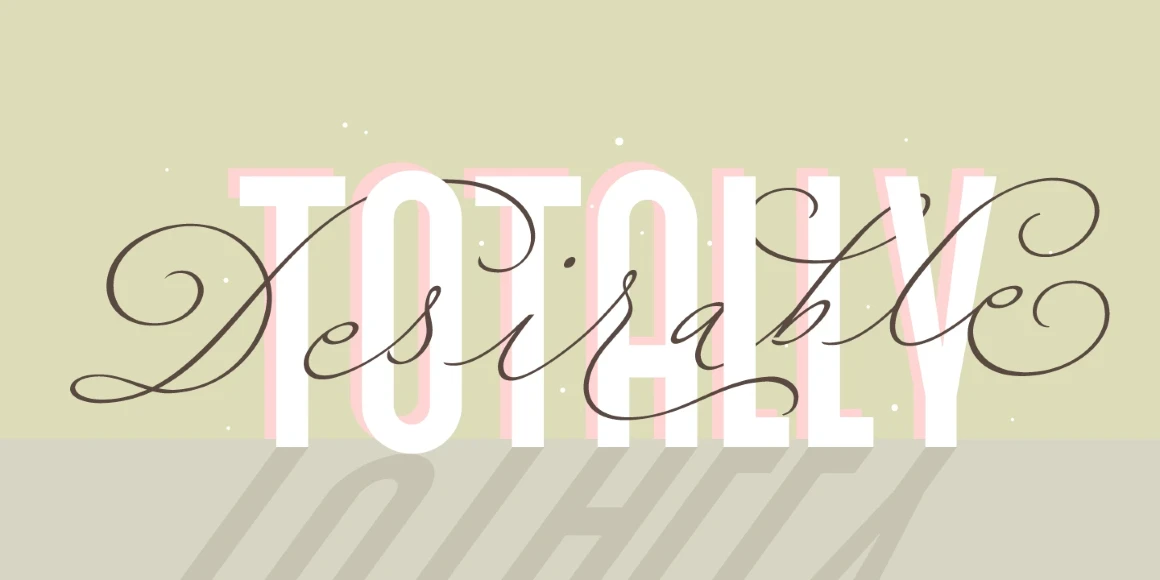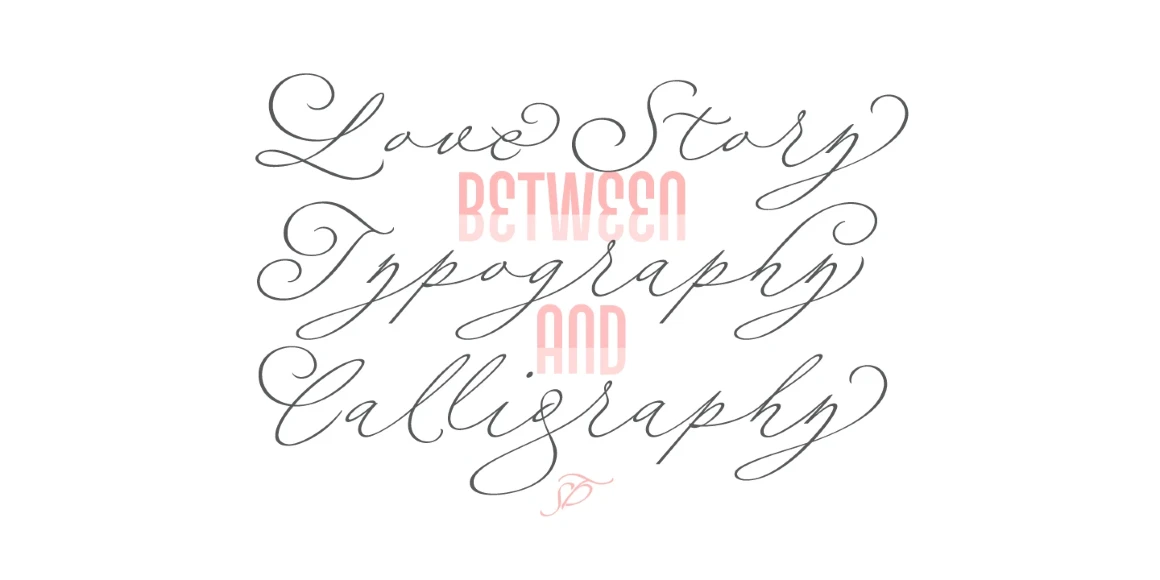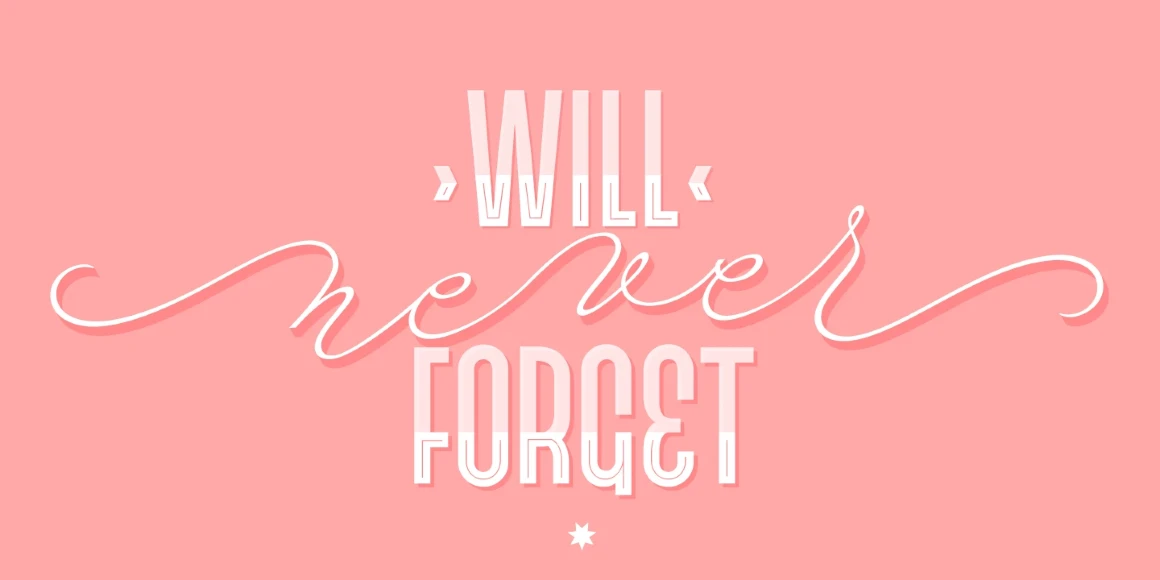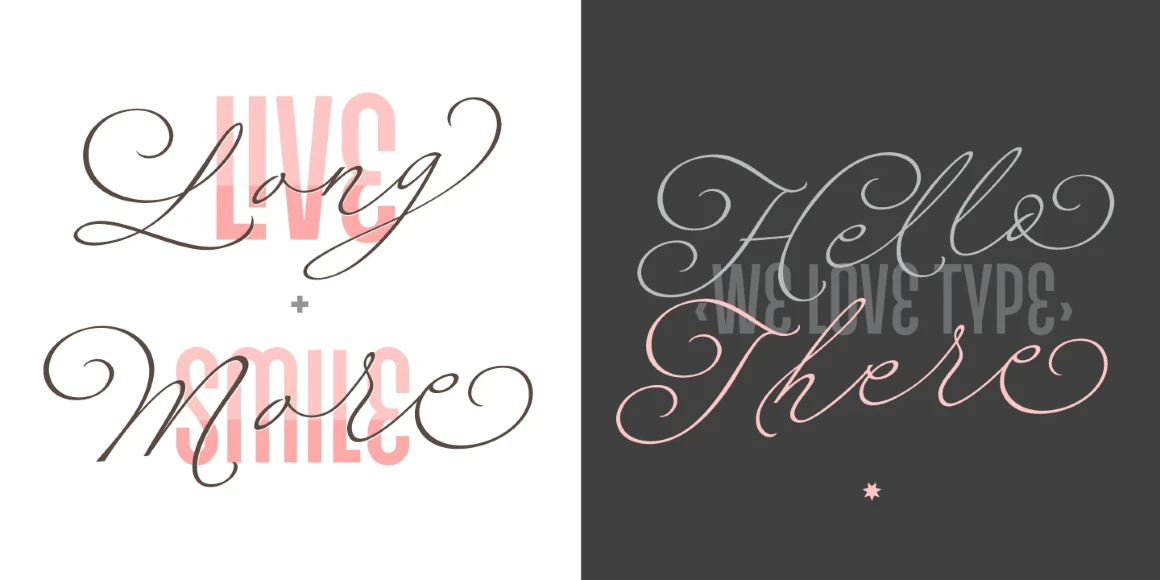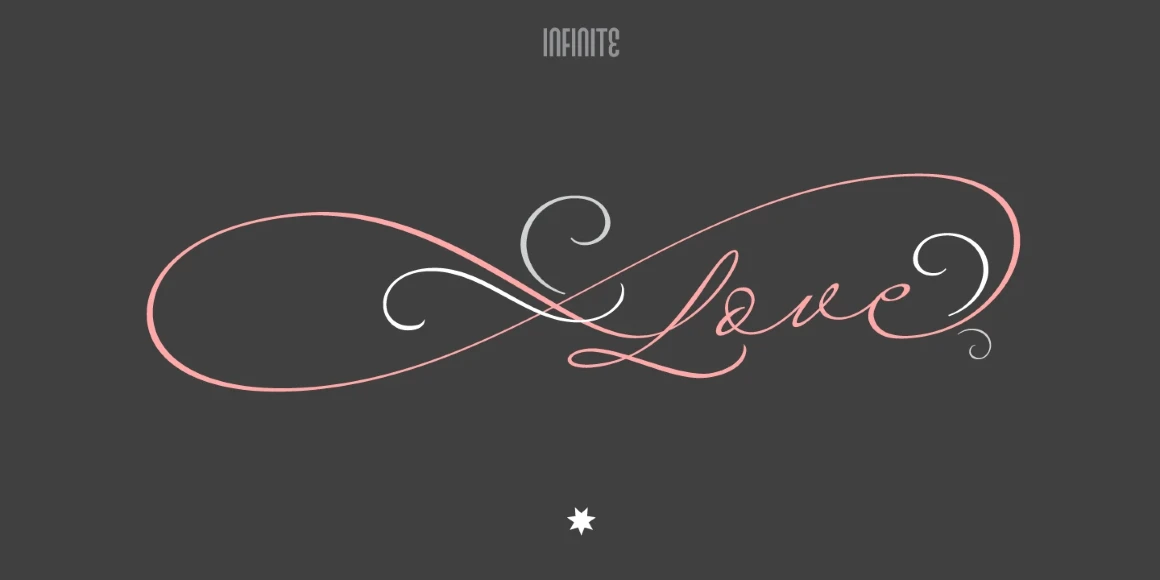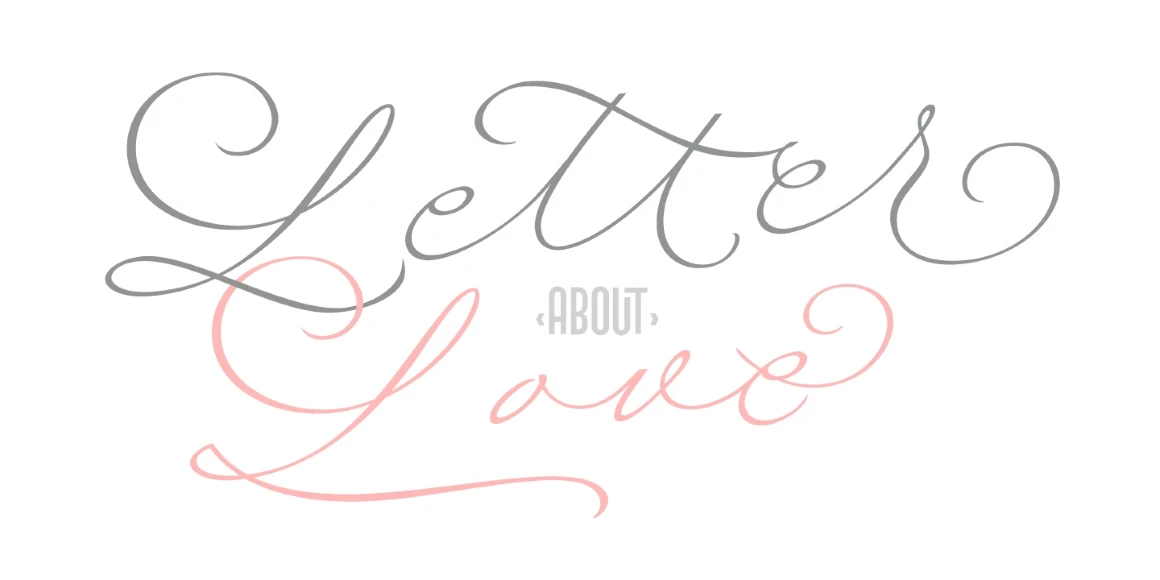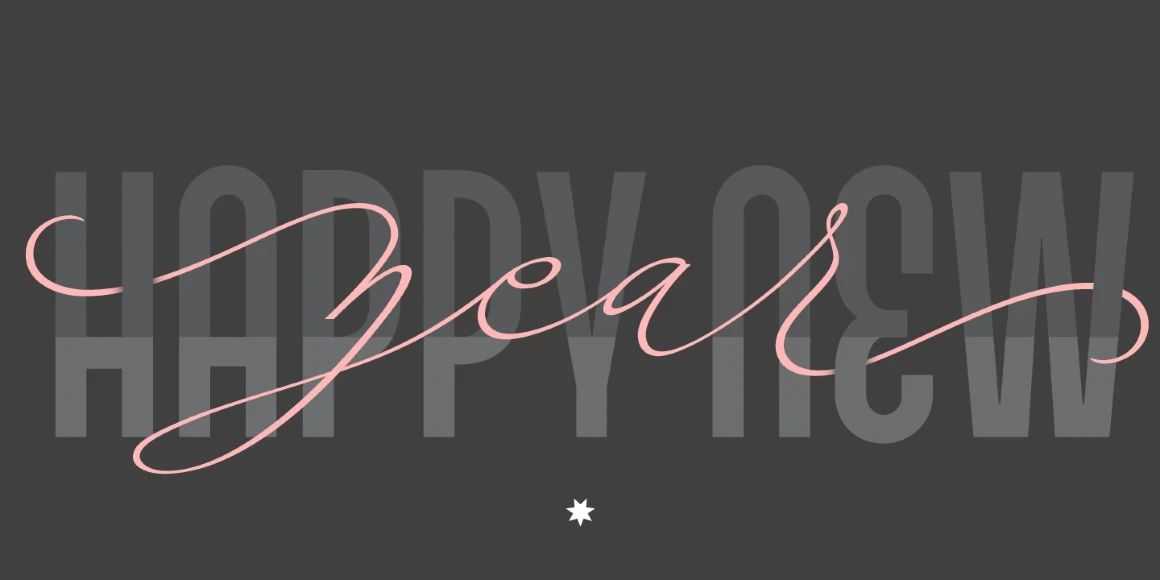
Fluire Script
From Sproviero Type
Fluire is a soft, minimal script inspired by tattoos, handwritten notes, and the beauty of going with the flow. Named after the Italian word fluire, meaning “to flow,” it captures that sense of ease and quiet movement. With nearly monoline style, it pairs effortlessly with its companion Art Deco-like Fluire Caps, available in playful variations like Up, Down, and Down Lines. Use it for wedding stationery, heartfelt cards, packaging, book covers — or, of course, tattoos.
Designed by Maximiliano Sproviero
Stylistic Set 8
Stylistic Set 9
Stylistic Set 10
Stylistic Set 11
Stylistic Set 12
Stylistic Set 13
Stylistic Set 14
Stylistic Set 15
Stylistic Set 16
Stylistic Set 17
Titling
Initial Forms
Final Forms